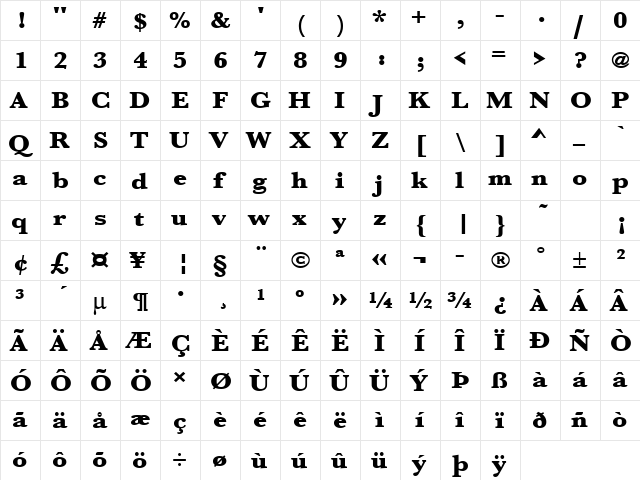
URWBaskerTUltBolExtWid Regular
Design Context for URWBaskerTUltBolExtWid Typeface
URWBaskerTUltBolExtWid is a composed and adaptable typeface that performs quietly and consistently across a wide range of design contexts.